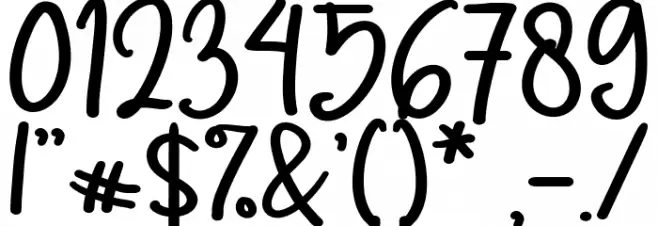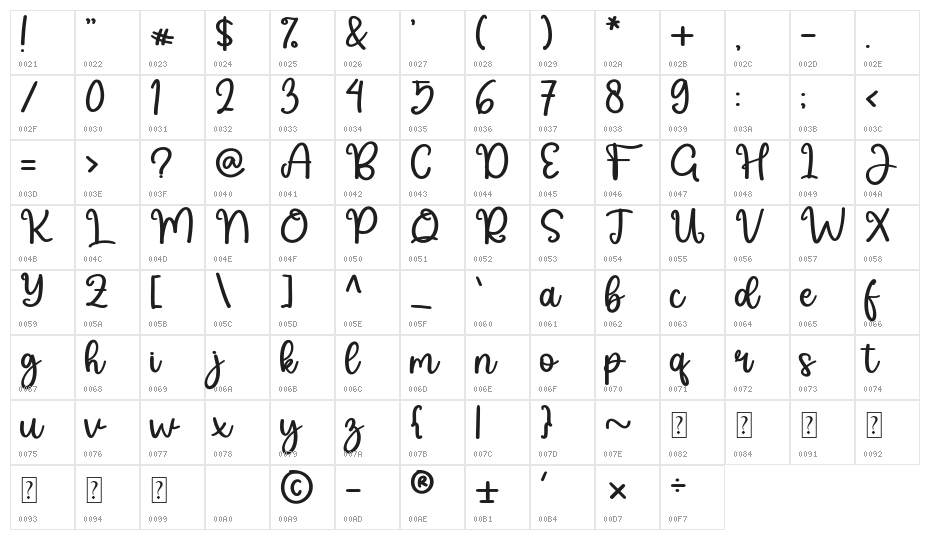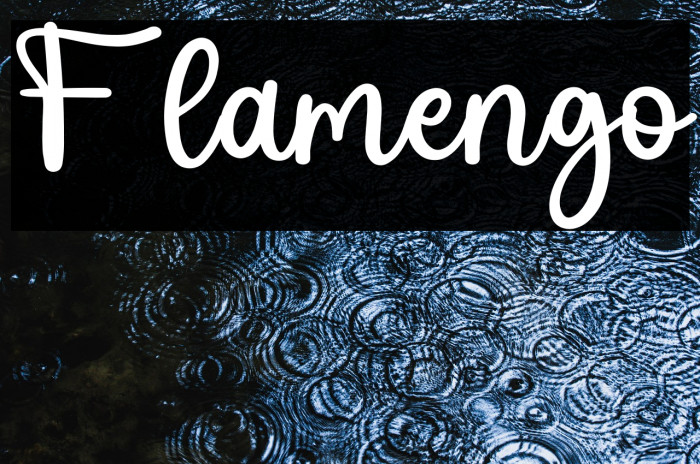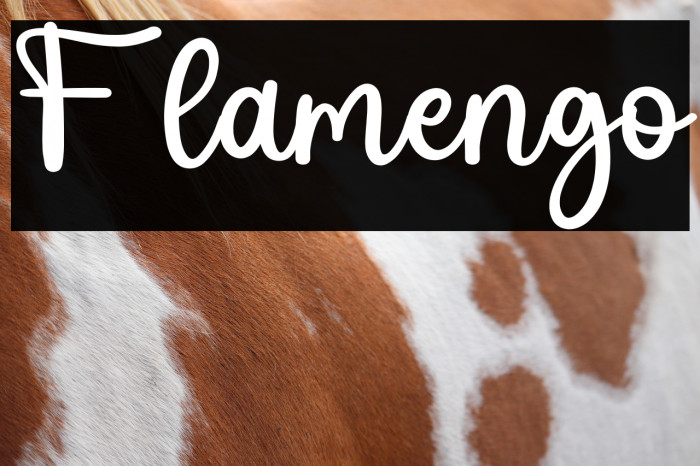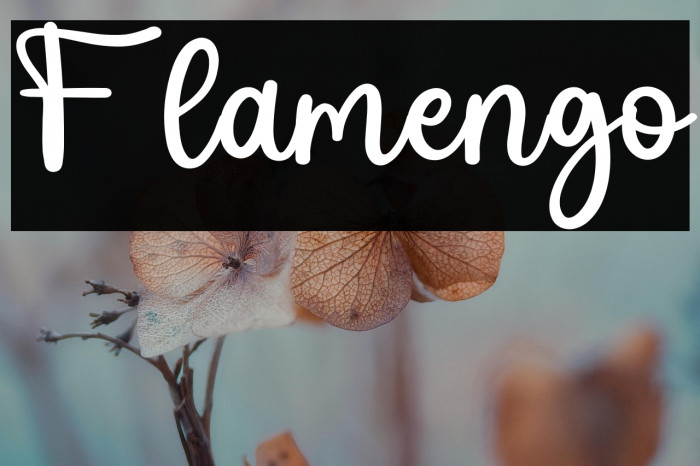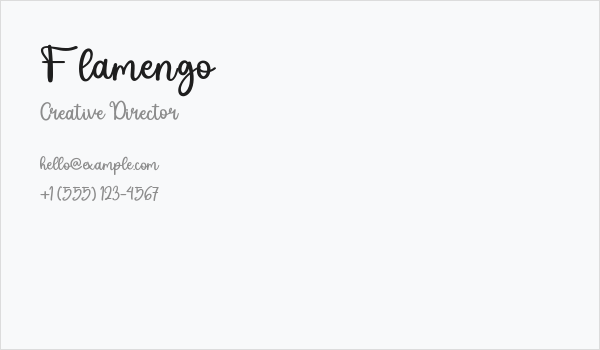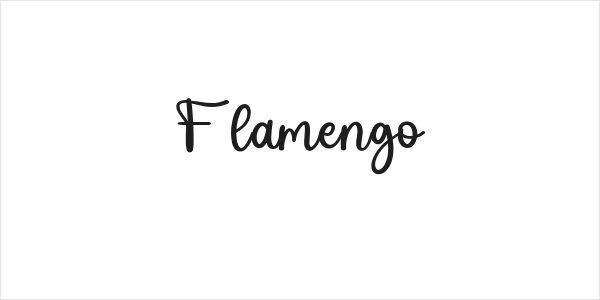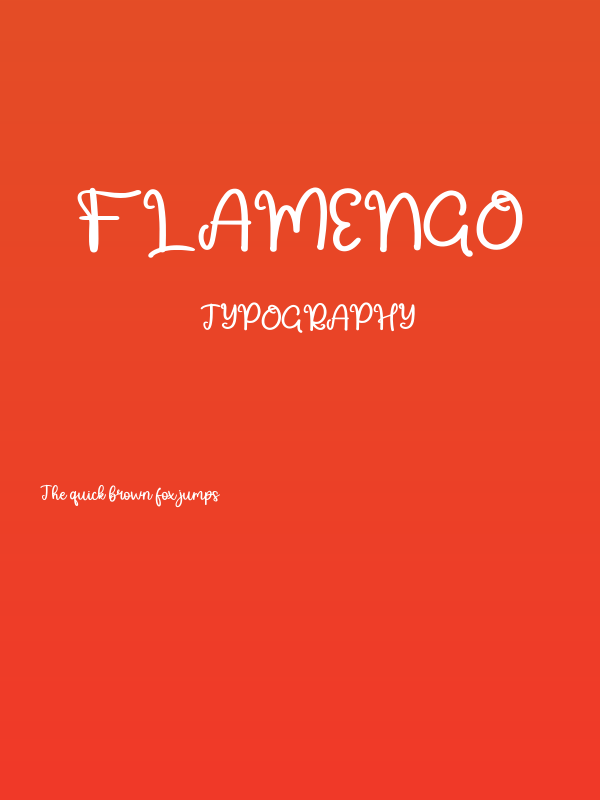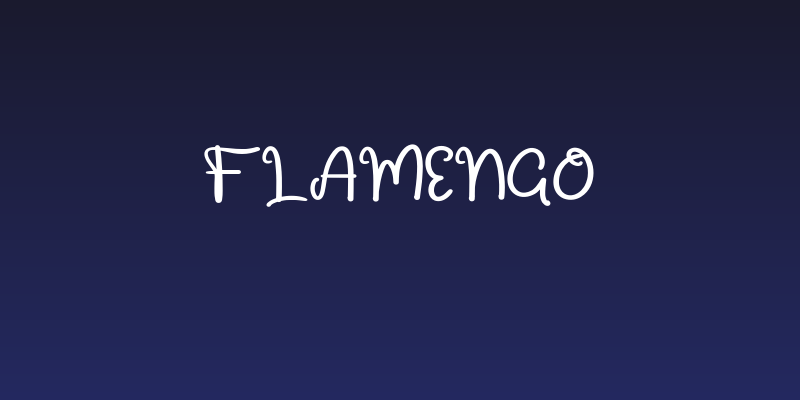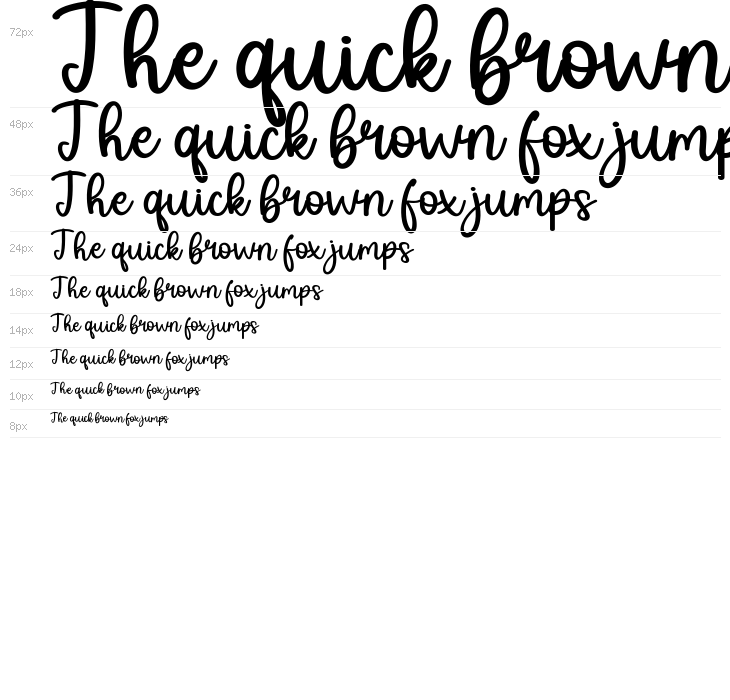
Flamengo Font
Flamengo Description
This font features a playful and flowing script style, characterized by its smooth, cursive strokes and a friendly, approachable appearance. The uppercase letters are slightly more structured, maintaining a balance between elegance and readability, while the lowercase letters exhibit a more fluid and connected form. The numerals and special characters are consistent with the overall style, offering a cohesive look. The font's design is versatile, making it suitable for a variety of creative projects.
| Proposed Projects | Ideal for wedding invitations, greeting cards, branding, and social media graphics. |